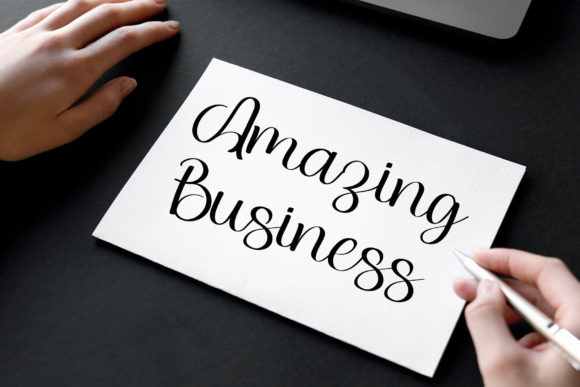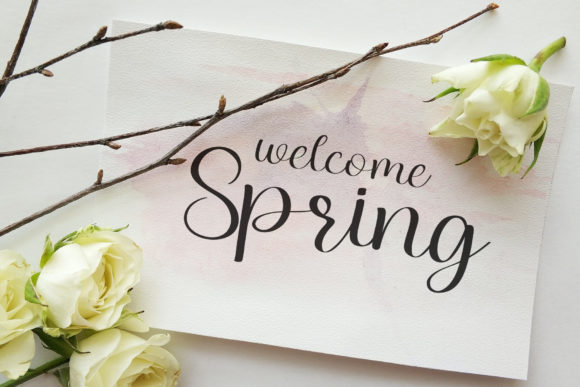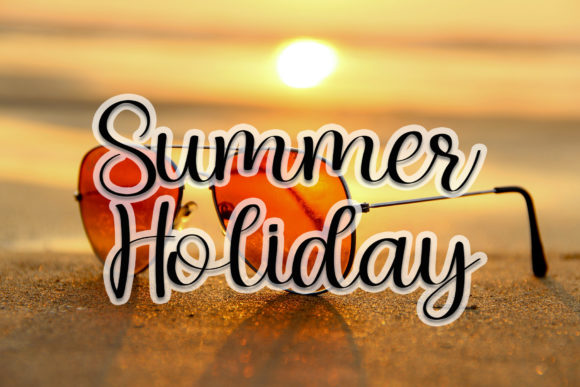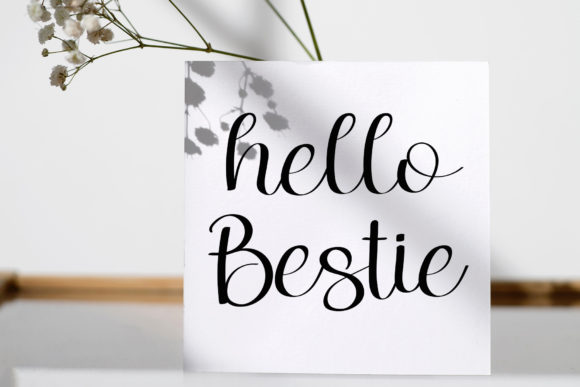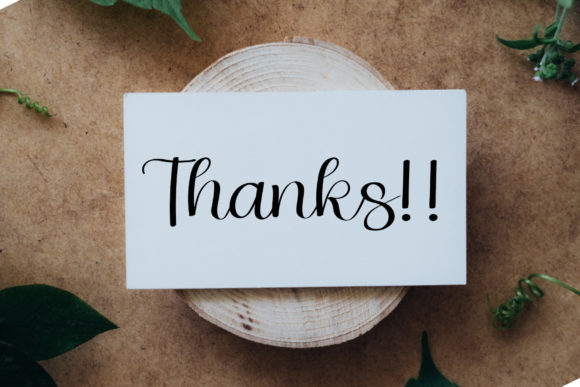
Introducing Breaking Font: Elevate Your Designs with Elegant Handwritten Style
In the world of design, typography plays a crucial role in conveying the message and aesthetic of a project. Among the numerous font styles available, handwritten fonts have gained immense popularity for their unique, personal touch. If you’re on the lookout for a font that combines elegance with a loving feel, look no further than Breaking Font. This beautiful, handwritten typeface is designed to add a sophisticated yet warm element to your craft or design project, making it stand out with its distinctive charm.
The Charm of Breaking Font
Breaking Font is an elegant handwritten font that exudes a sense of refinement and grace. Its smooth, flowing lines and carefully crafted letterforms make it perfect for projects that require a touch of sophistication. Whether you’re working on a branding project, a wedding invitation, a packaging design, or a digital platform, Breaking Font can help you achieve a visually appealing and cohesive look.
Key Features of Breaking Font
- Elegant Handwritten Style: Breaking Font boasts a beautiful, handwritten aesthetic that adds a personal and loving touch to any design.
- Versatility: This font is incredibly versatile and can be used across a variety of design projects, from digital applications to print materials.
- Easy to Read: Despite its elegant and cursive nature, Breaking Font maintains a high level of readability, making it suitable for both headings and body text.
- Unique Character: Each letterform in Breaking Font is meticulously designed to ensure that your text stands out with a unique character.
Applications of Breaking Font
The versatility of Breaking Font makes it an excellent choice for a wide range of design applications. Here are some ideas to get you started:
- Branding and Logotypes: Use Breaking Font to create a memorable brand identity that communicates elegance and sophistication.
- Wedding and Event Stationery: Add a touch of romance and elegance to your wedding invitations, save-the-date cards, and other event materials.
- Packaging Design: Elevate your product packaging with a font that exudes luxury and quality.
- Digital Platforms: Use Breaking Font in your website design, social media graphics, or digital advertisements to create a cohesive and appealing visual identity.
- Art and Craft Projects: Whether you’re creating handmade cards, scrapbooking pages, or other craft projects, Breaking Font can add a beautiful, personal touch.
Tips for Using Breaking Font Effectively
To make the most of Breaking Font, consider the following tips:
- Pair with Complementary Fonts: Combine Breaking Font with simpler, sans-serif fonts for contrast and visual interest.
- Adjust Letter Spacing: Fine-tune the letter spacing to ensure optimal readability and aesthetic appeal.
- Experiment with Colors: While Breaking Font looks stunning in black or dark colors, don’t be afraid to experiment with softer hues or gradients to match your project’s theme.
- Use it Sparingly: For maximum impact, use Breaking Font strategically. It can be particularly effective for headings, quotes, or key messages.
| Font Name | Breaking Font |
| Author | Bintang Studio |
Breaking Font is a versatile and elegant handwritten font that can elevate your design projects with its unique charm and sophistication. Whether you’re a designer, a craft enthusiast, or a DIY hobbyist, this beautiful typeface offers endless possibilities for creative expression. By incorporating Breaking Font into your projects, you can add a loving touch that resonates with your audience and sets your work apart.